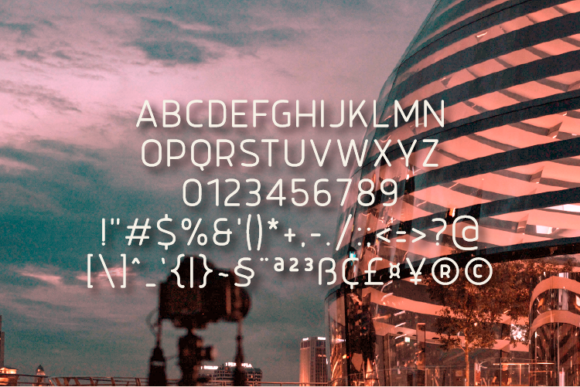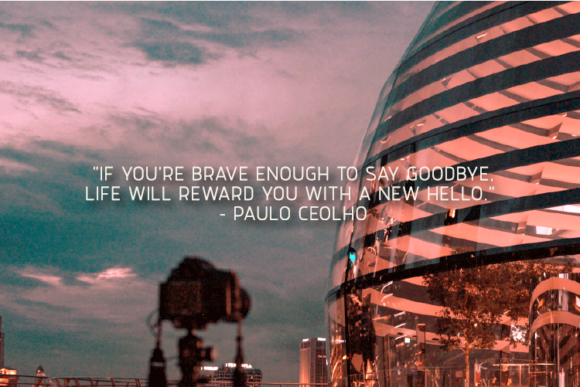
Introduction to Lonetto Font
Have you ever been stuck on a design project, struggling to find the perfect font to bring your creative vision to life? We’ve all been there. But what if you stumbled upon a font that’s as versatile as it is beautiful? Enter the Lonetto Font, a stunning sans serif font that’s sure to elevate your next project.
With its thin and tall lettering, the Lonetto Font is the perfect design resource for any creative project. Whether you’re crafting beautiful headings, gorgeous invitations, or stunning logos, this high-quality font is sure to make a lasting impression. And the best part? It’s available for a free download, complete with a transparent background, making it easy to integrate into your design.
Key Features of Lonetto Font
- High-quality design font with a unique, creative style, ideal for various design projects.
- Comes with a transparent background, allowing for easy customization and integration with other design elements.
- Designed with a high level of detail and precision, resulting in a crisp and clear appearance at resolutions up to 300 DPI.
- Perfect for use in creative projects, such as logos, graphics, and typography-based designs.
Honest Review: Lonetto Font
As a designer, I’m always on the lookout for high-quality design resources to elevate my creative projects. The Lonetto Font has caught my attention, and I’m excited to share my honest review.
- It features a transparent background, allowing for seamless integration with various design elements.
- The font’s high quality is evident in its crisp lines and sophisticated style, making it perfect for creative projects.
- The Lonetto Font is highly versatile, suitable for a wide range of design applications, from branding to editorial content.
- The font’s limited character set might be a drawback for designers requiring a comprehensive character library.
Overall, I’m impressed with the Lonetto Font’s quality and versatility. While it may have some limitations, it’s an excellent design resource for creative projects. If you’re looking for a high-quality font to enhance your designs, the Lonetto Font is definitely worth considering.
For the best results, pair the Lonetto Font with a high-quality image or design element. Experiment with different font sizes and colors to create visual interest. Use the font in a creative project, such as a brochure or business card, to make a lasting impression.
Conclusion
The Lonetto Font is a valuable design resource that can elevate your creative projects. With its elegant and modern design, it’s perfect for a wide range of applications. Download the font today and explore its full potential in your design workflow.